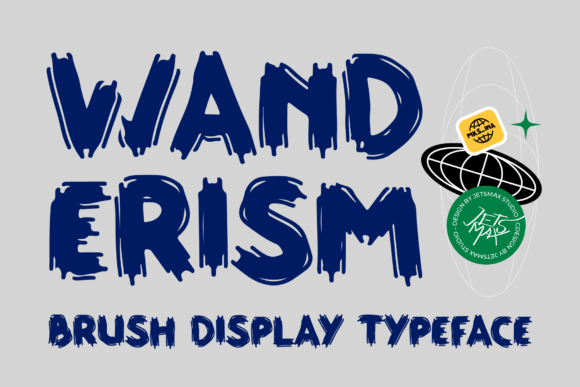
**Wanderism: A Hand-Crafted Display Font for Creating Bold and Mesmerizing Designs**
Welcome to the world of Wanderism, where fonts don't just exist, they captivate. As an E-commerce SEO expert, I'm thrilled to introduce you to this extraordinary display font, a creation of Jetsmax Studio, that draws its inspiration from the vibrant and edgy world of neo-graffiti art. Let me take you on a journey to unveil the beauty and versatility of Wanderism and why it's the perfect choice for your creative projects.
Embark on an adventure with Wanderism and experience the thrill of creating designs that speak louder than words. This font is more than just a collection of letters; it's a symphony of strokes and shapes that dance together, evoking emotions and telling stories. Whether you're a graphic designer, an artist, a crafter, or simply someone with a passion for unique typography, Wanderism is your passport to a world of endless creative possibilities.
With its bold and confident presence, Wanderism commands attention wherever it goes. Its distinct brushed texture adds a touch of urban grit and authenticity to your projects, making them stand out from the ordinary. Imagine your designs captivating audiences, leaving a lasting impression that lingers in their minds long after they've seen them.
But Wanderism's allure doesn't stop at its visual impact. This font is incredibly versatile, adapting seamlessly to a wide range of applications. Bring your coloring books to life with Wanderism's playful and energetic strokes, or use it to create eye-catching logos, posters, and social media graphics that demand attention. The possibilities are limitless, only bound by your imagination.